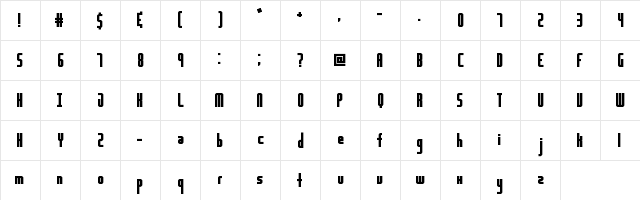
Highway Block Sans Regular Free Font
Highway Block Sans Regular
Designer: GeronimoFonts
Design Context for Highway Block Sans
Highway Block Sans is a composed and adaptable typeface that performs quietly and consistently across a wide range of design contexts.
Pro Tip: Use Highway Block Sans in both headline and body roles to test its range before committing to a single application.